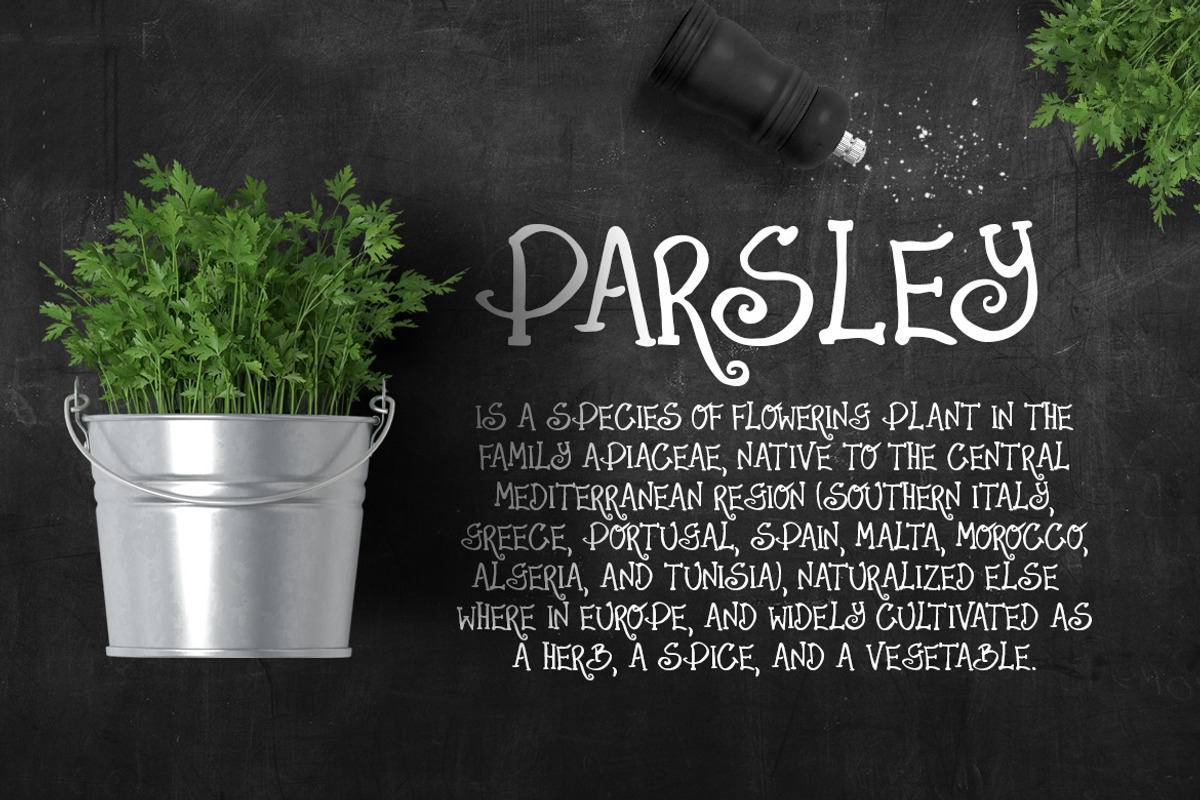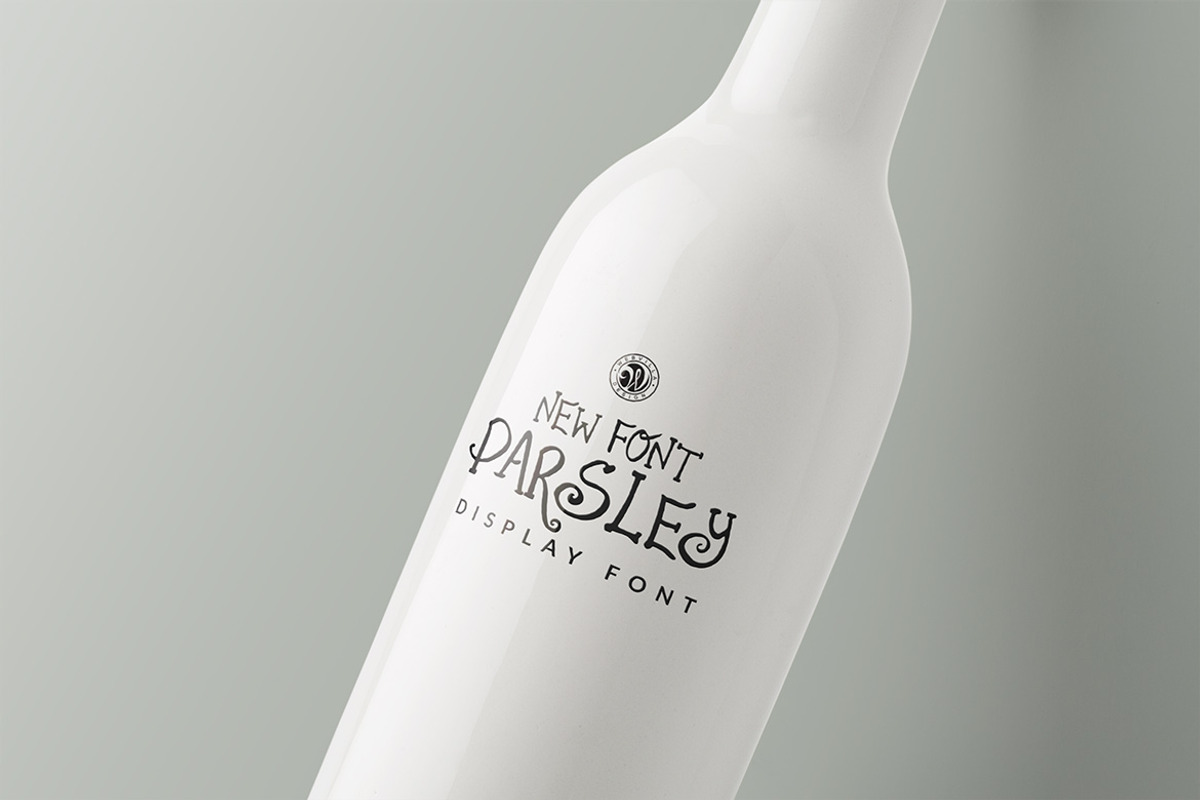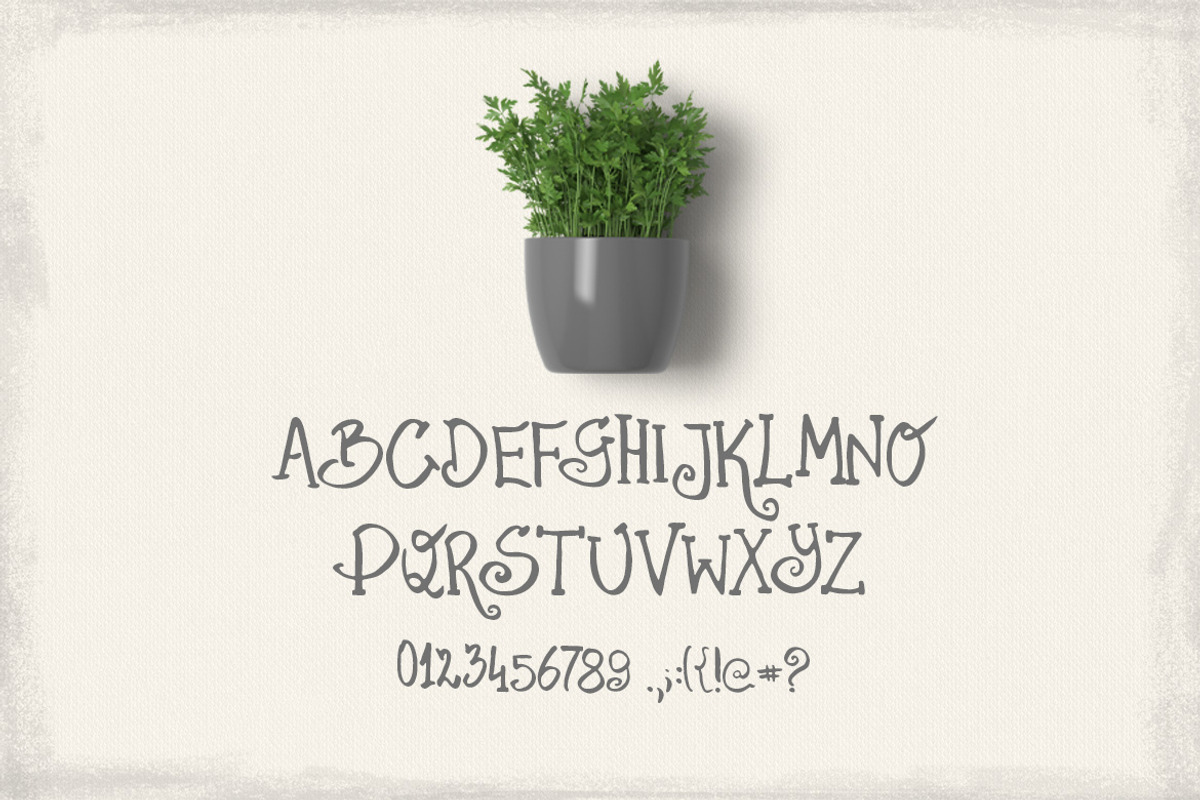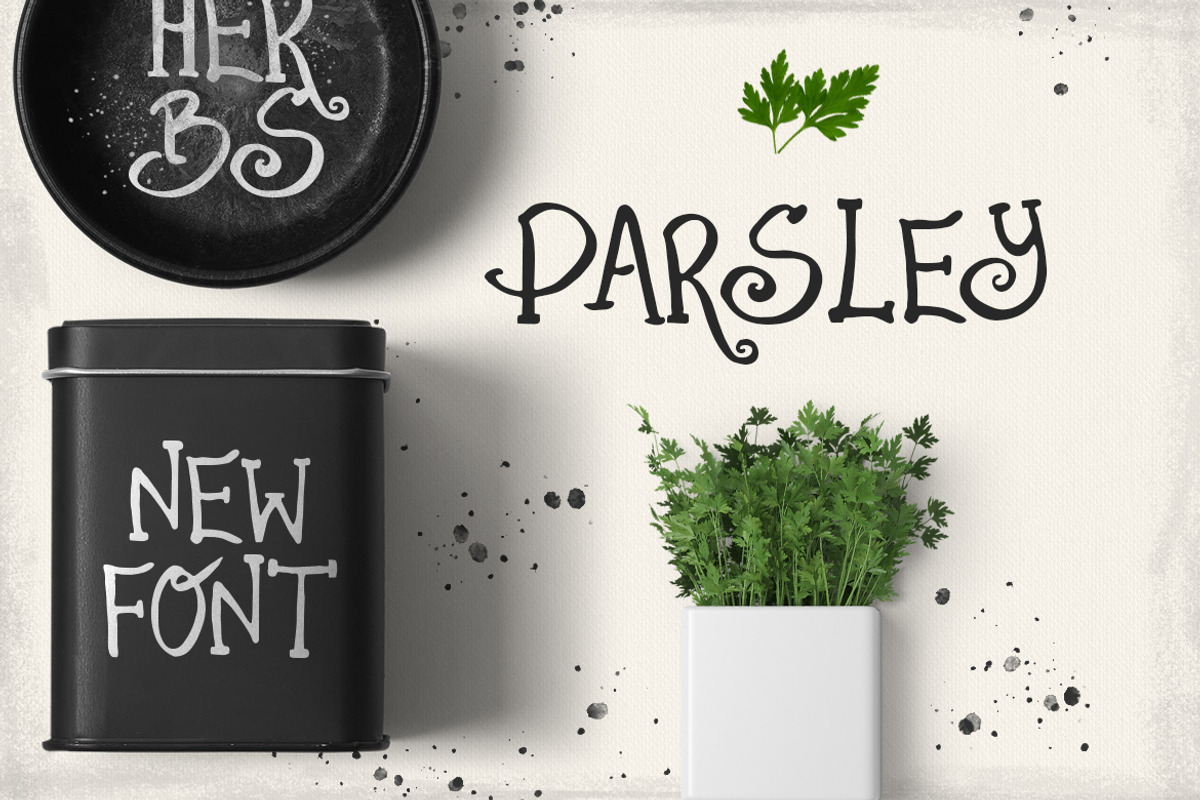
Parsley Font
Parsley Font by Webvilla Studio is a font selected for branding, posters, packaging, typography.
Why Parsley Font is worth a look
Parsley Font by Webvilla Studio fits naturally into Branding, posters, packaging, typography.